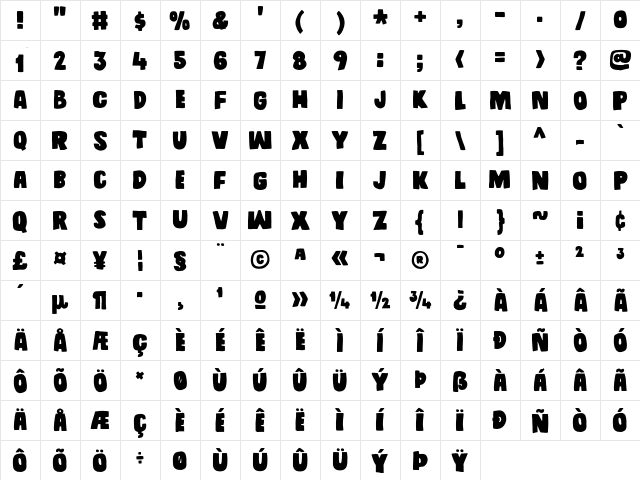
Complete Daddy in space DEMO Regular glyph index. Displaying only characters natively supported by Daddy in space DEMO Regular font.
Daddy in space DEMO is a composed and adaptable typeface that performs quietly and consistently across a wide range of design contexts.
Who designed the Daddy in space DEMO Regular font?